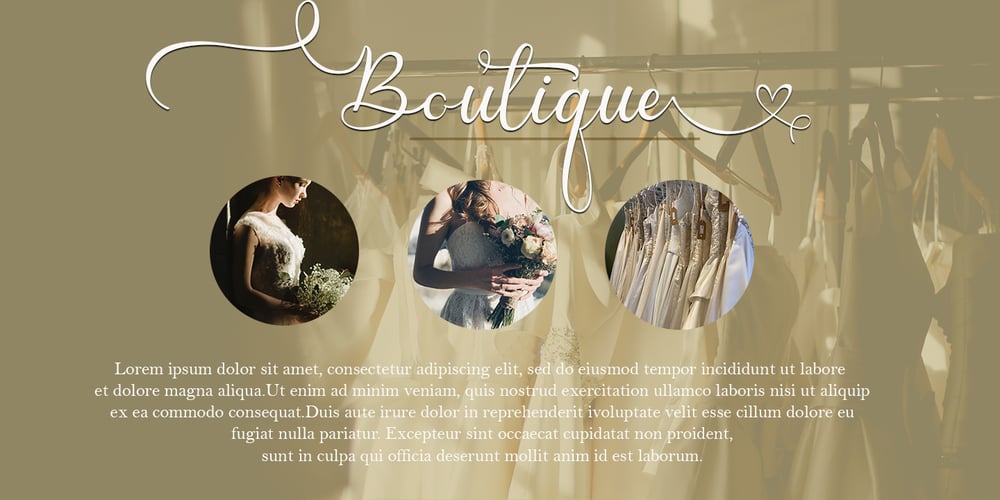
Happy Birthday
Happy Birthday font
Happy Birthday Font Family was designed by Ariefr Munandar and published by dotHK Studio. Happy Birthday contains 1 styles and family package options. Happy Birthday Font is a modern calligraphy font withthe current handwriting style, this font is perfect for branding,wedding invites, magazines, mugs, business cards, quotes, posters, andmore, you can try first if you want to buy this font.Happy Birthday Font is equipped with 363 glyphs. andby having many of these glyphs there will be able to choose the lettersaccording to your likes, lots of variations and options for each letter,so you can customize on your design choices. To use a variety of flying machines, you need a program that supportsOpenType features such as Adobe Photoshop Cs / Adobe Photoshop CC,Adobe Illustrator CS / Adobe Illustrator CC, Adobe Indesign and CorelDraw and many more programs that support OpenType. If you do not have a program that supports OpenType, you can accessall the alternate glyphs using Font Book (Mac) or Character Map(Windows)Thanks and happy designing :-)Thank You for purchase!Arief.hk